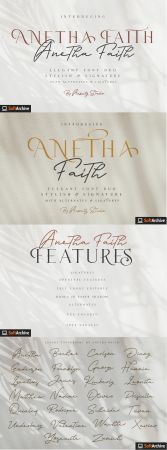
Hey Guys!, Anxiety Studio proudly presents, Anetha Faith Font Duo is a signature font classy and Luxury Serif, fun, free compilation expressive and cool script inspired by a luxury fashion. Contemporary handwriting fonts with ligatures and alternative styles ready to add unique look and bloom on your design.